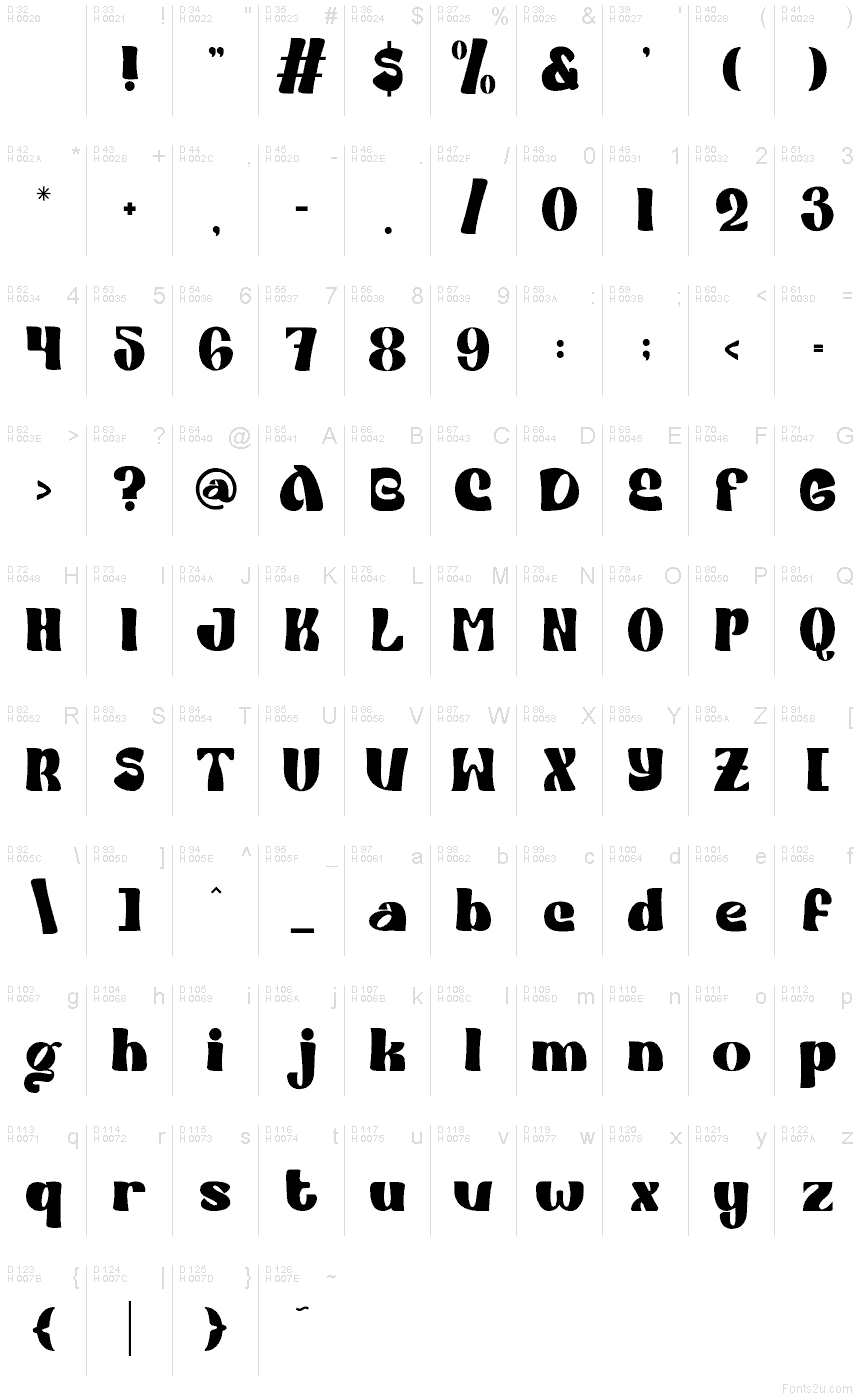
Comet Hotspur
Comet Hotspur font by PutraCetol Studio is a bold groovy display font with a strong, vintage appeal. Its rounded forms and slab serif influences create a retro aesthetic with a strong presence needed for attention-grabbing projects.